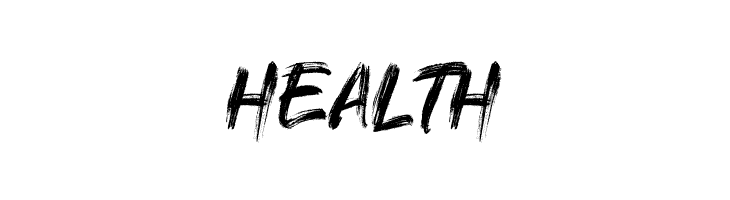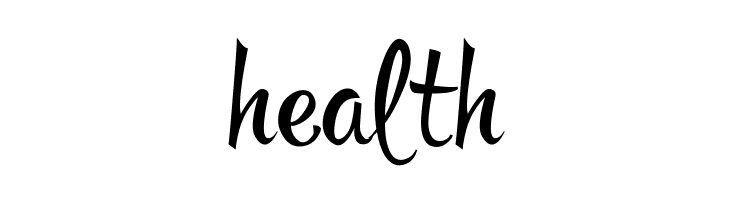
A modern, geometric sans-serif font with a clean and balanced design.
A modern, geometric sans-serif font with a friendly, italic style.
A bold, monospaced typeface with a modern, geometric design.
A modern, geometric sans-serif font with rounded edges and uniform stroke width.
A bold, italicized font with parallel lines creating a dynamic, modern look.
A decorative font with multi-line, geometric characters for a bold, modern look.
A dynamic and flowing script font with elegant, cursive letterforms.
A bold, distressed font with a vintage, textured appearance.
A bold, brush-style font with dynamic, hand-painted strokes.